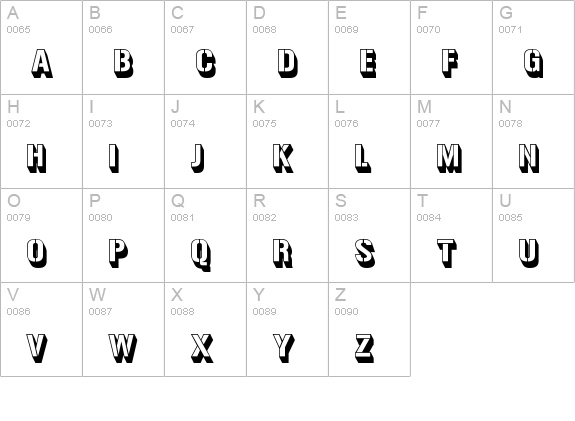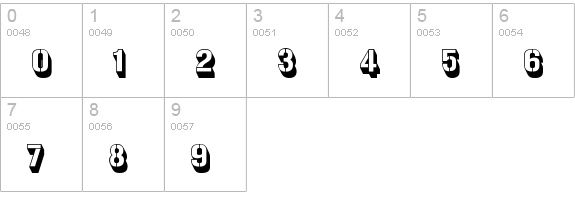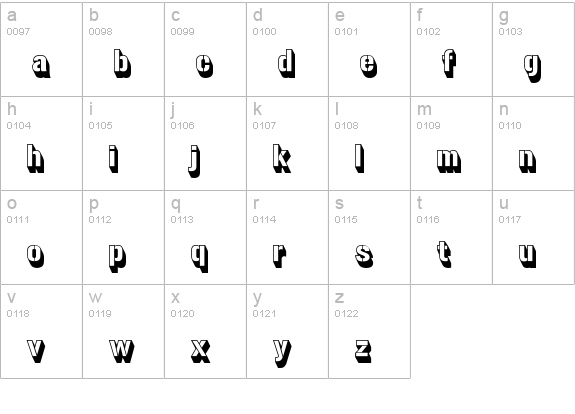
Gunplay 3D Font Details
Gunplay 3D font is a dynamic and eye-catching typeface that brings a sense of boldness and power to your design projects. With its three-dimensional effect, this font exudes a modern and edgy vibe, perfect for making a statement. The sharp angles and intricate details of Gunplay 3D font give it a unique and stylish appearance that is sure to capture attention. Best of all, Gunplay 3D font is available for free download at FontsMarket.com. Whether you're working on a poster, logo, or any other creative project, this font will add a touch of excitement and energy to your designs. Don't miss out on the opportunity to enhance your work with the striking Gunplay 3D font – download it for free today!